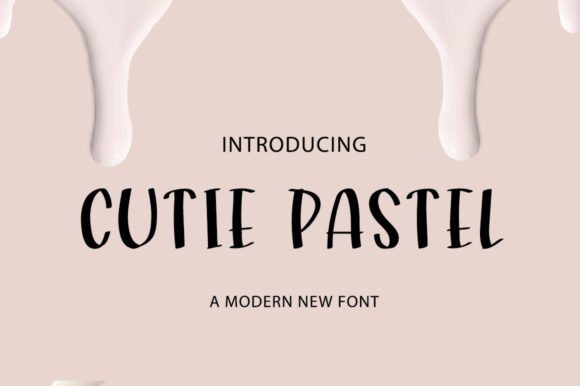
Have you ever stared at a blank page or screen, waiting for the perfect font to bring your creative idea to life? You know that feeling when everything falls into place, and your vision starts to take shape? That’s exactly what happens when you use the Cutie Pastel Font. This adorable and casual handwritten font is designed to make your projects stand out, whether you’re a seasoned designer or a creative enthusiast.
As a versatile font, Cutie Pastel is perfect for a variety of applications, from social media graphics to DIY projects. Its soft pastel hues and playful charm make it a valuable addition to any designer’s toolkit. With the Cutie Pastel Font, you can turn your ideas into beautiful, eye-catching designs that will leave a lasting impression on your audience.
Cutie Pastel Font Key Features
- Unique Characteristics: The Cutie Pastel Font features a soft, pastel color palette and delicate lines, making it perfect for creating whimsical and feminine designs.
Designer Review: Cutie Pastel Font
Overall, I’d say the Cutie Pastel Font is a sweet addition to any design project. It’s ✨ playful, ✨ feminine, and ✨ perfect for creating a whimsical atmosphere. The pastel color palette is on point, and the font’s ✨ fluid curves make it easy on the eyes.
The font’s versatility is another major plus. It’s suitable for a wide range of applications, from blog headers to social media graphics. I’ve also found it to be ✨ highly customizable, allowing me to tweak the font’s size, color, and spacing to suit my design needs.
- ⚠️ Limited character set: The font’s character set is somewhat limited, which can be a problem if you need to use special characters or symbols.
- ⚠️ Not ideal for body text: While the font is great for headings and titles, it’s not the most readable font for body text. It can be a bit overwhelming if used extensively.
Overall, I’d give the Cutie Pastel Font 4 out of 5 stars. While it has its limitations, its unique charm and versatility make it a great addition to any designer’s toolkit. With a bit of creativity and careful usage, it’s sure to add a touch of magic to your designs.
For the best results, use the Cutie Pastel Font in conjunction with pastel-colored backgrounds and images.
To create a cohesive look, pair the font with other pastel-colored elements, such as graphics and icons.
The Cutie Pastel Font is ideal for:
Social media graphics and posts
Blog and website headers
Party invitations and decorations
Baby and children’s products (e.g., cards, stickers, etc.)